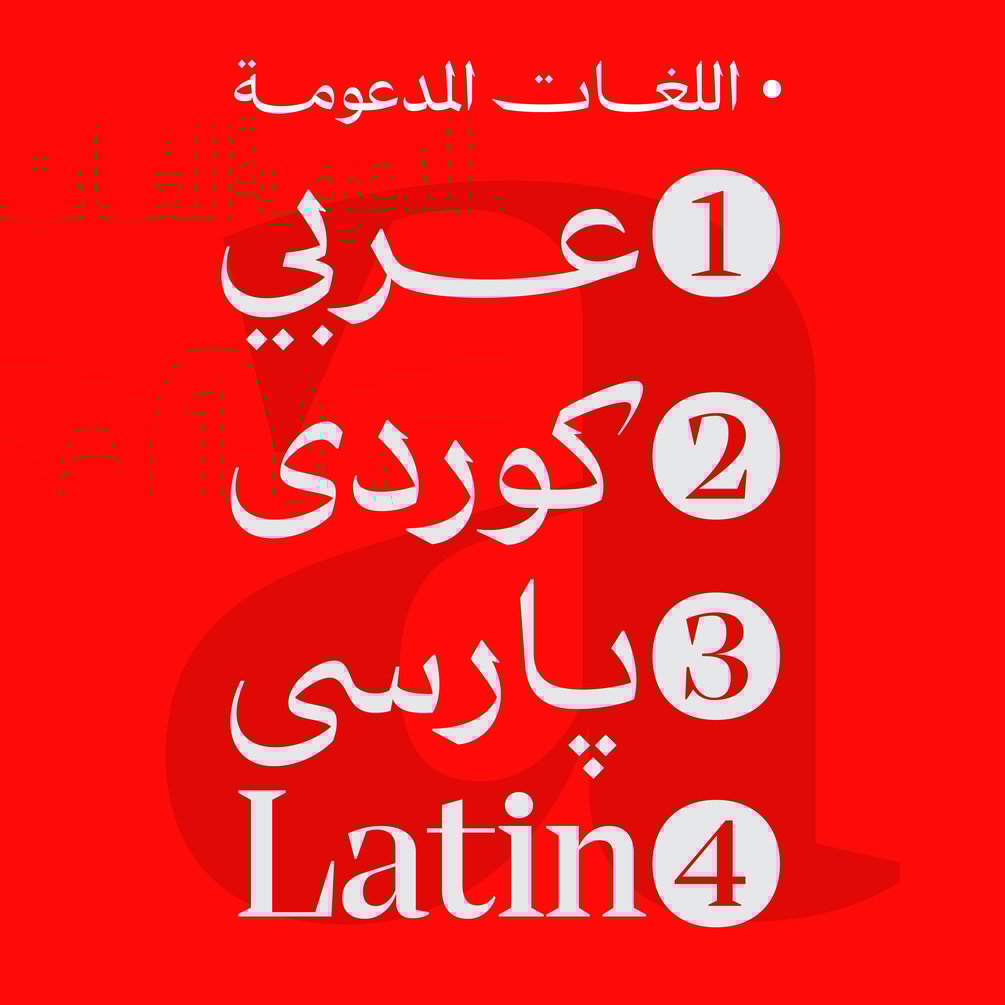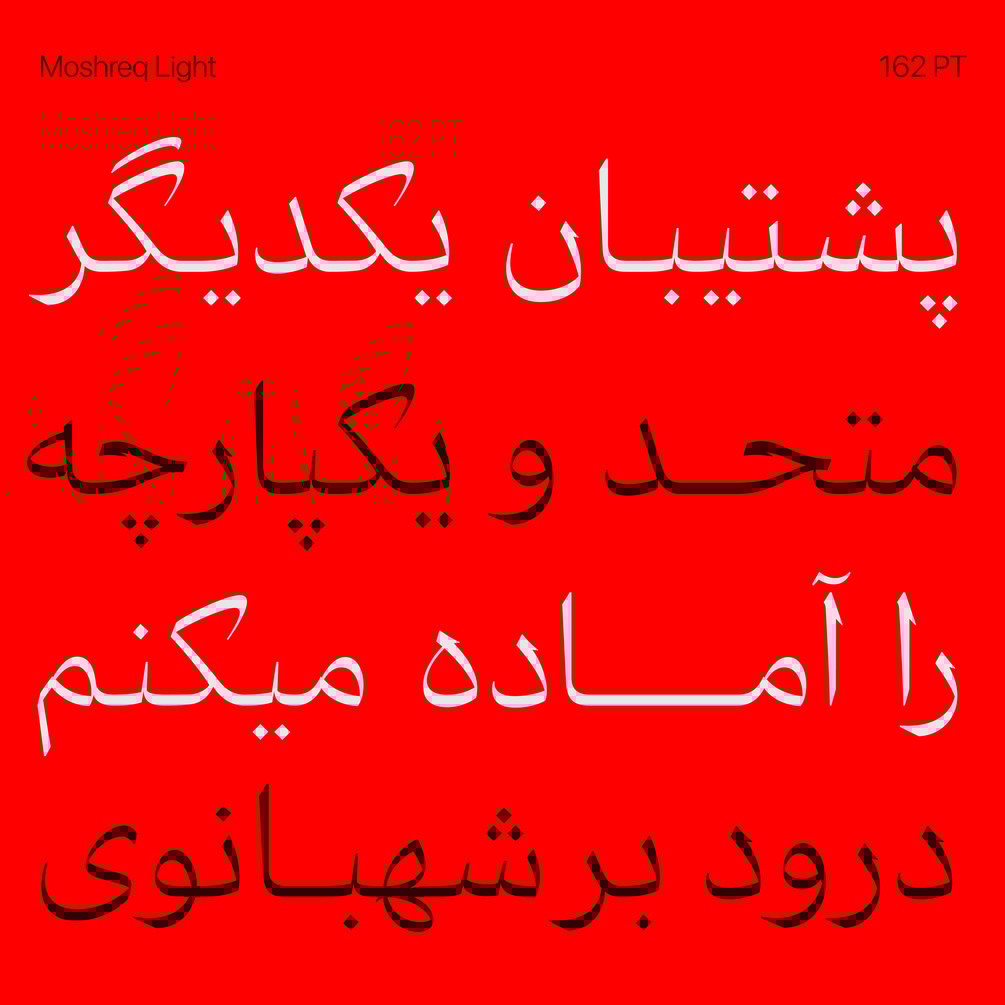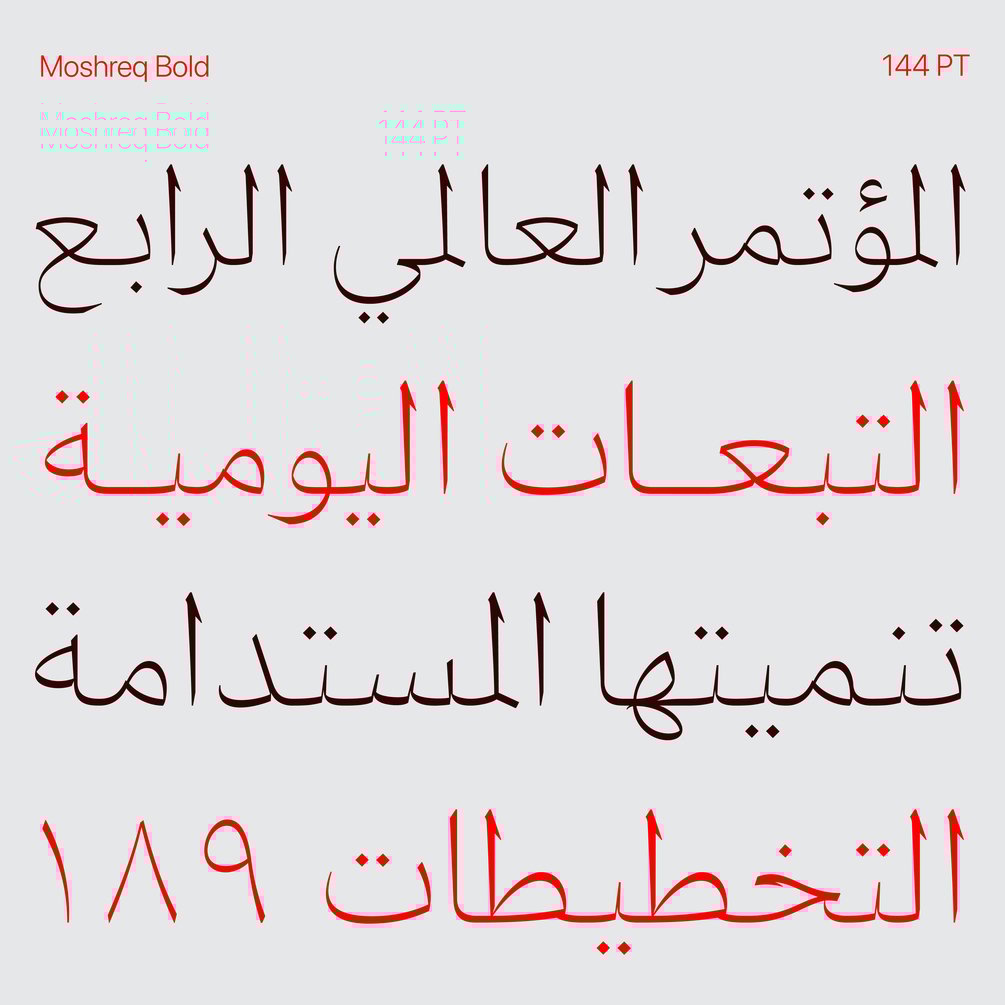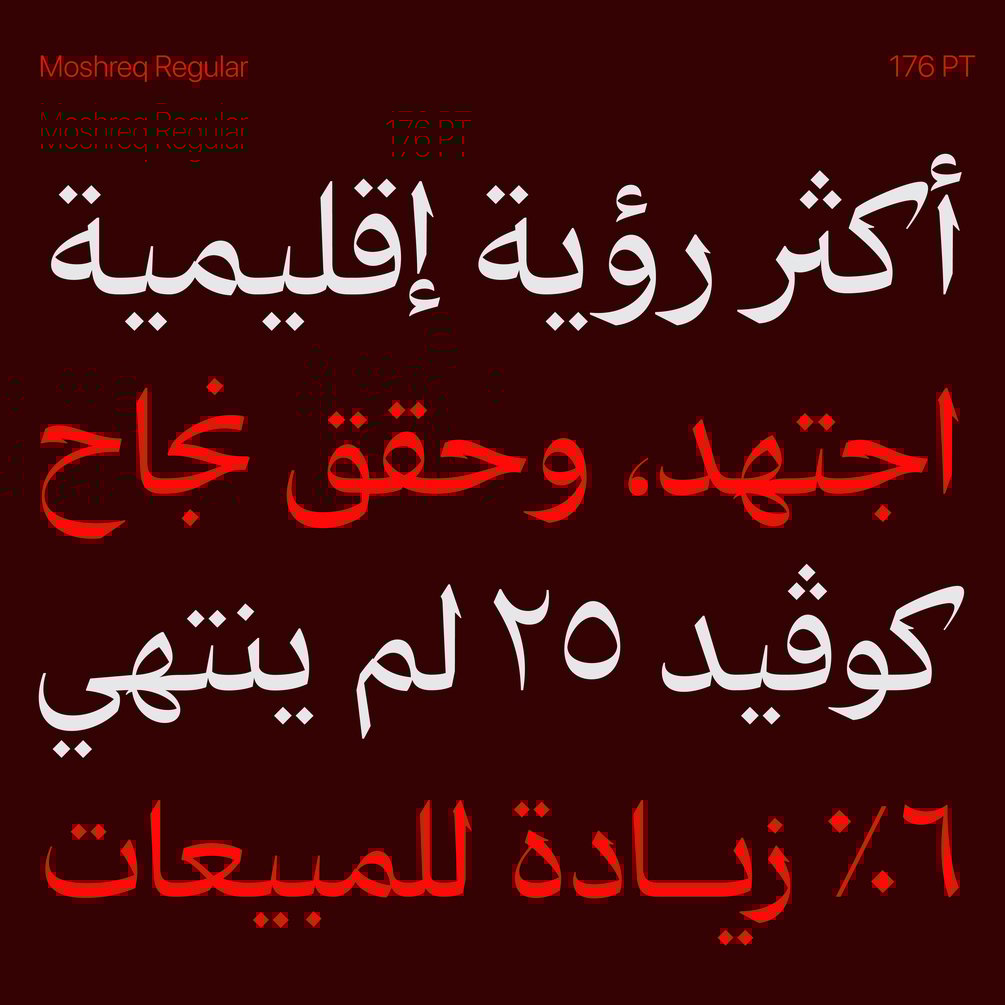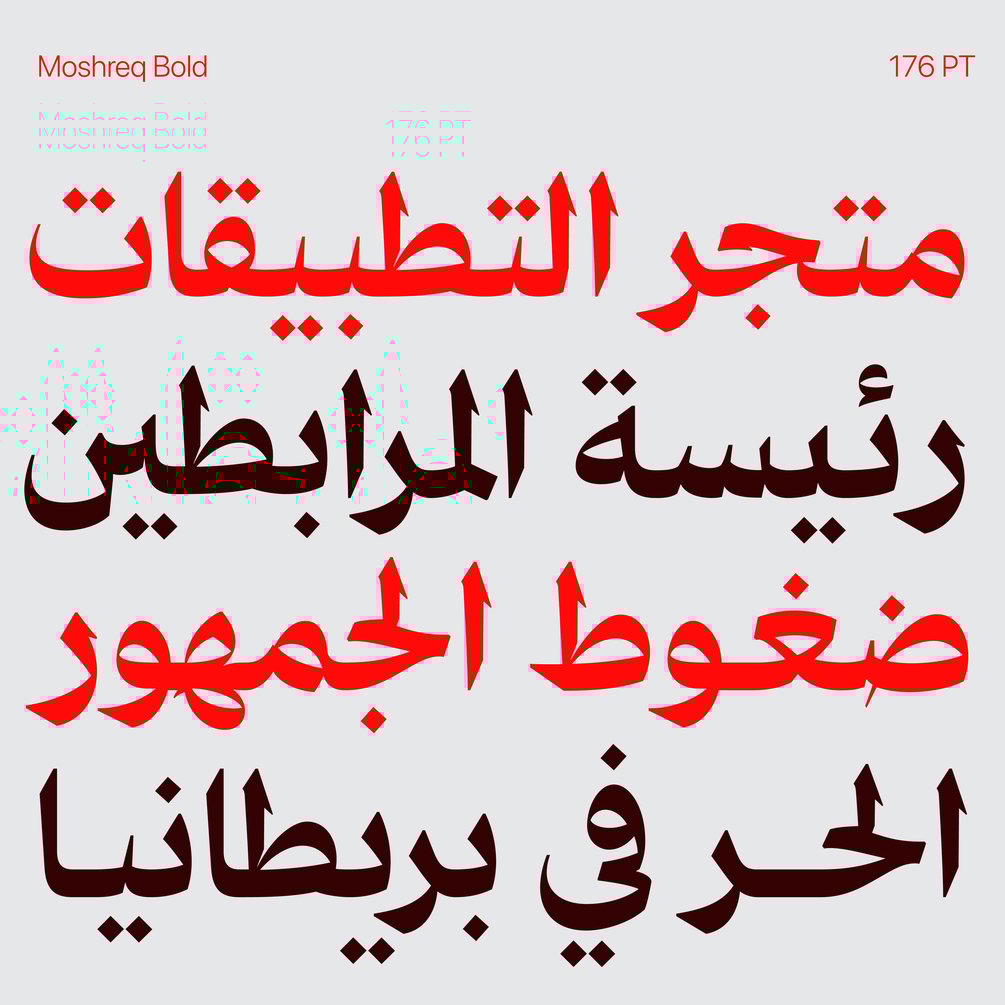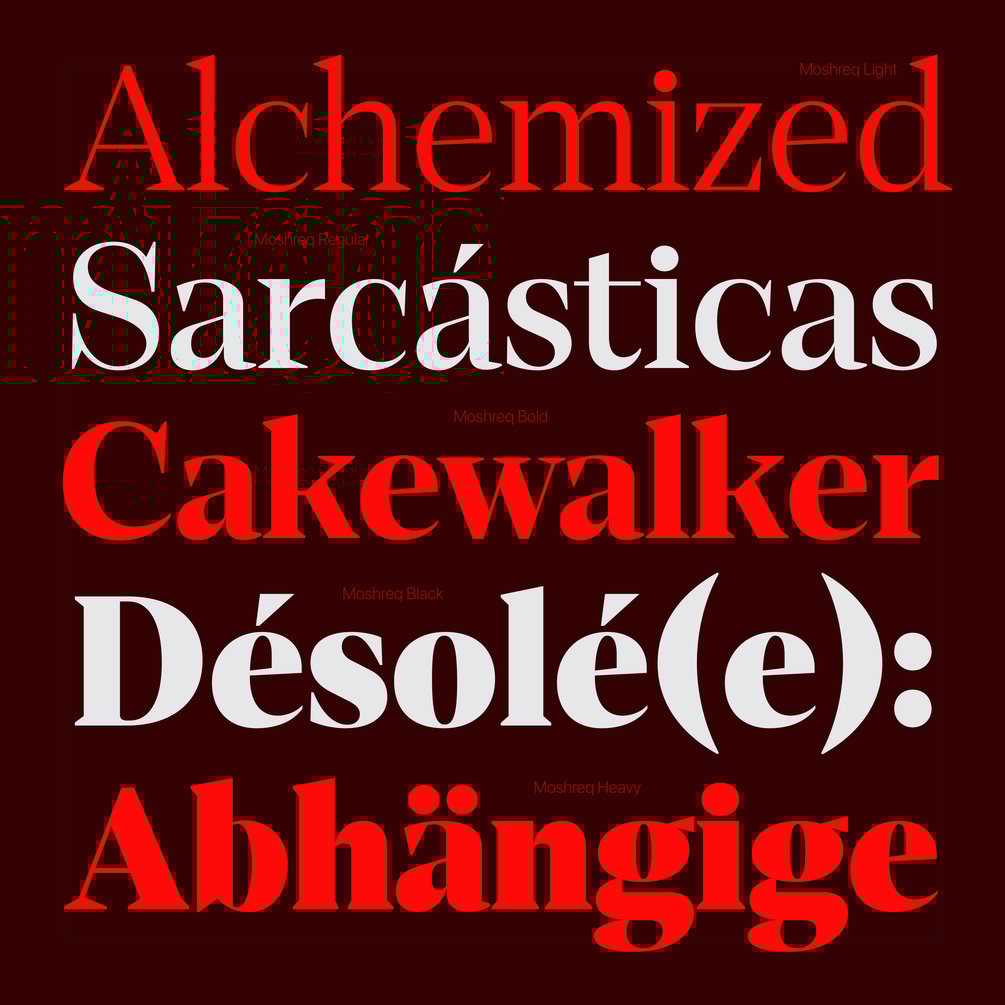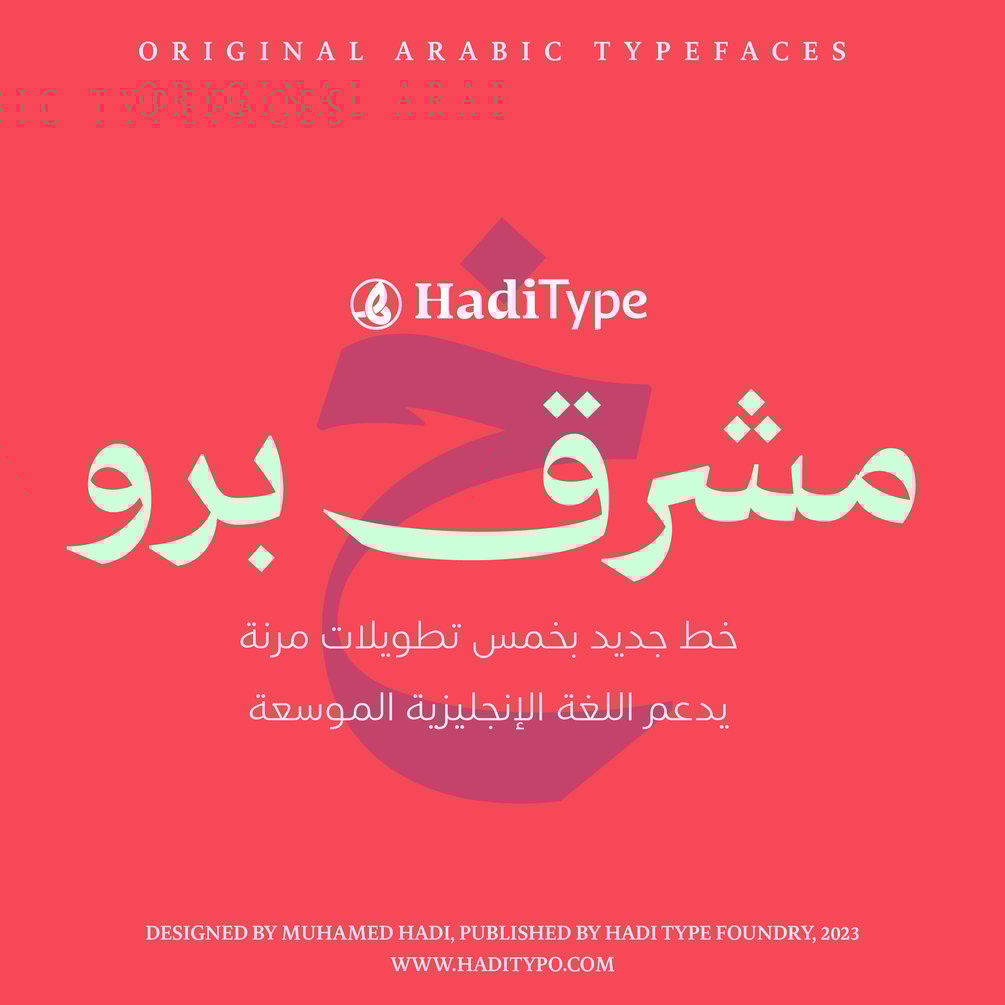
HT Moshreq Pro
𝐌𝐮𝐡𝐚𝐦𝐦𝐞𝐝 𝐇𝐚𝐝𝐢 𝐝𝐫𝐞𝐰 𝐌𝐨𝐬𝐡𝐫𝐞𝐪 𝐢𝐧 𝐞𝐚𝐫𝐥𝐲 𝟐𝟎𝟐𝟐 𝐚𝐬 𝐚𝐧 𝐞𝐥𝐞𝐠𝐚𝐧𝐭 𝐝𝐢𝐬𝐩𝐥𝐚𝐲 𝐟𝐚𝐦𝐢𝐥𝐲 𝐨𝐟 𝐬𝐢𝐱 𝐰𝐞𝐢𝐠𝐡𝐭𝐬 𝐢𝐧 𝐀𝐫𝐚𝐛𝐢𝐜 𝐨𝐧𝐥𝐲.
𝐈𝐧 𝟐𝟎𝟐𝟑, 𝐌𝐮𝐡𝐚𝐦𝐦𝐞𝐝 𝐇𝐚𝐝𝐢 𝐜𝐨𝐧𝐭𝐢𝐧𝐮𝐞𝐝 𝐝𝐫𝐚𝐰𝐢𝐧𝐠 𝐭𝐡𝐞 𝐋𝐚𝐭𝐢𝐧 𝐥𝐚𝐧𝐠𝐮𝐚𝐠𝐞 𝐟𝐨𝐫𝐦𝐬 𝐚𝐧𝐝 𝐦𝐚𝐝𝐞 𝐚𝐧 𝐞𝐱𝐭𝐞𝐧𝐝𝐞𝐝 𝐯𝐞𝐫𝐬𝐢𝐨𝐧.
𝐌𝐨𝐬𝐡𝐫𝐞𝐪 𝐏𝐫𝐨 𝐡𝐚𝐬 𝐦𝐚𝐧𝐲 𝐎𝐩𝐞𝐧𝐓𝐲𝐩𝐞 𝐟𝐞𝐚𝐭𝐮𝐫𝐞𝐬 𝐚𝐧𝐝 𝐟𝐢𝐯𝐞 𝐥𝐞𝐯𝐞𝐥𝐬 𝐨𝐟 𝐜𝐚𝐥𝐥𝐢𝐠𝐫𝐚𝐩𝐡𝐢𝐜 𝐞𝐥𝐞𝐠𝐚𝐧𝐭 𝐜𝐮𝐫𝐬𝐢𝐯𝐞 𝐭𝐚𝐭𝐰𝐞𝐞𝐥 / 𝐤𝐚𝐬𝐡𝐢𝐝𝐚 (𝐞𝐥𝐨𝐧𝐠𝐚𝐭𝐢𝐨𝐧)
𝐇𝐓 𝐌𝐨𝐬𝐡𝐫𝐞𝐪 𝐏𝐫𝐨 𝐢𝐬 𝐞𝐱𝐜𝐞𝐥𝐥𝐞𝐧𝐭 𝐟𝐨𝐫 𝐝𝐞𝐬𝐢𝐠𝐧𝐞𝐫𝐬 𝐰𝐡𝐨 𝐰𝐨𝐫𝐤 𝐨𝐧 𝐛𝐫𝐚𝐧𝐝𝐢𝐧𝐠, 𝐭𝐢𝐭𝐥𝐞𝐬, 𝐩𝐨𝐬𝐭𝐞𝐫𝐬, 𝐚𝐧𝐝 𝐦𝐨𝐫𝐞.
Release: 2023
Styles: 9 Style
Supported Languages: Arabic, Persian, Urdu, North-African Arabic, Kurdî, & Turkish.
OpenType Features: ccmp, Contextual Alternates, Stylistic Alternates, Standard Ligatures, Swash, Dictionary Ligatures, Required Ligatures.
Designer: Muhammed Hadi
Foundry: HadiType Foundry